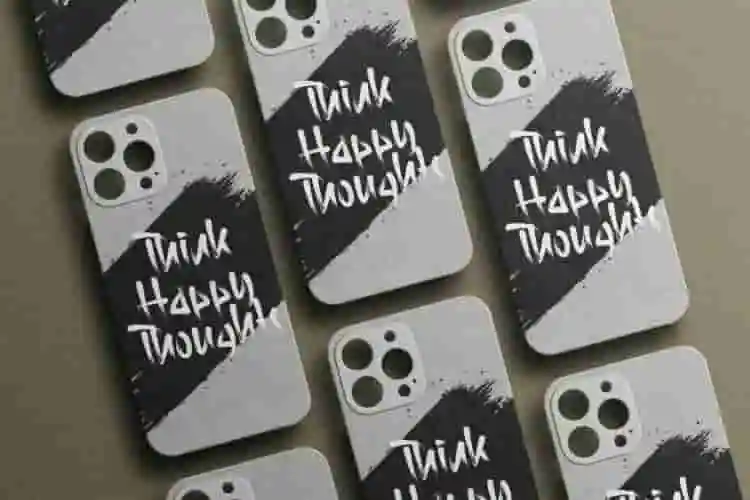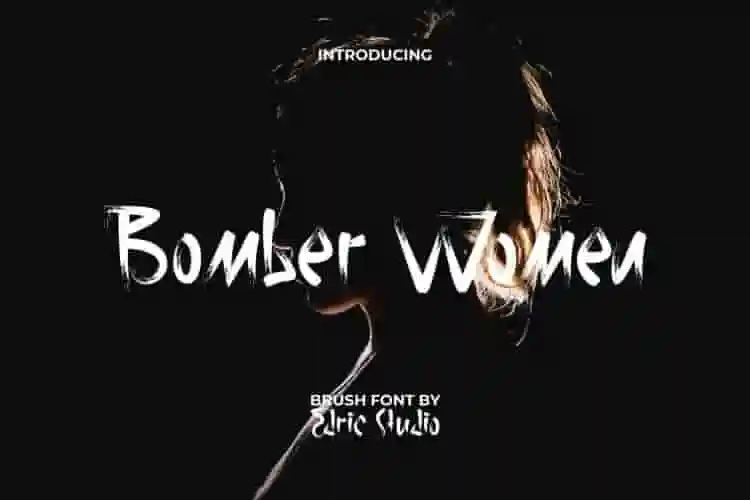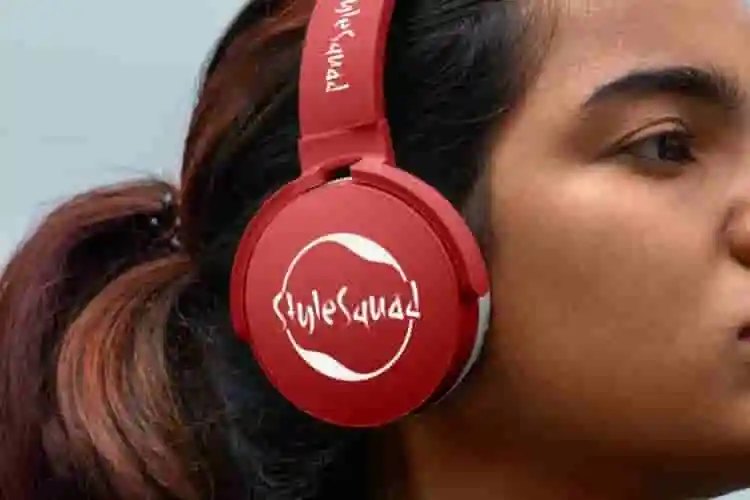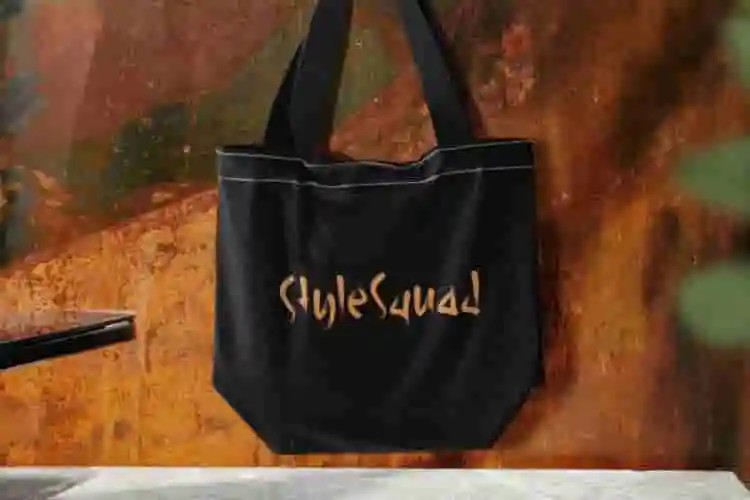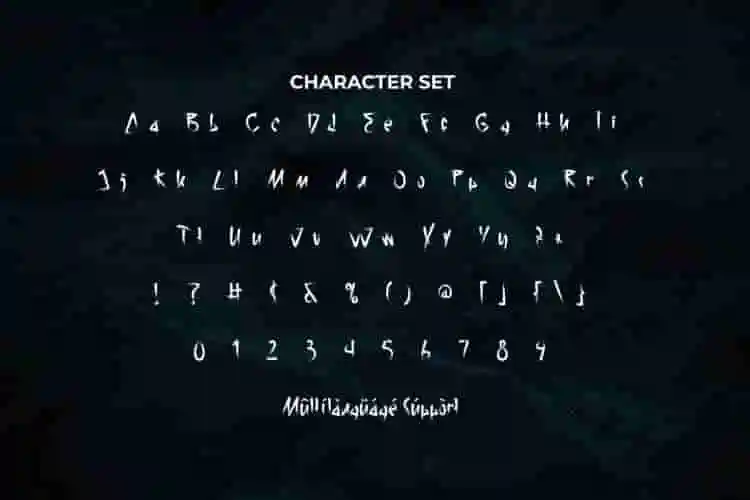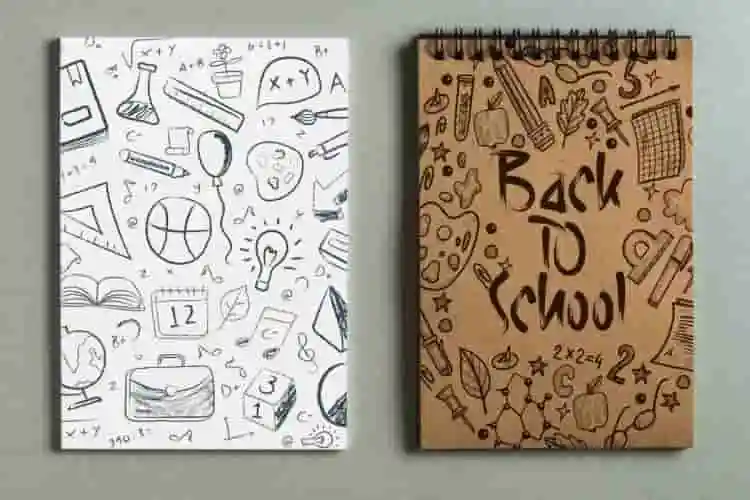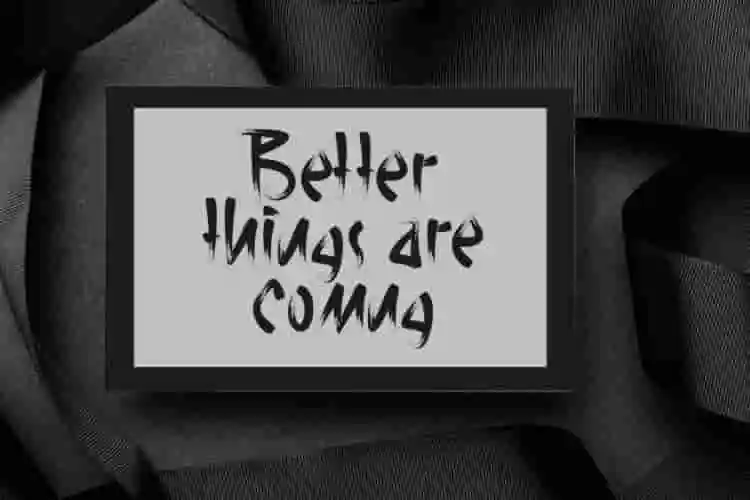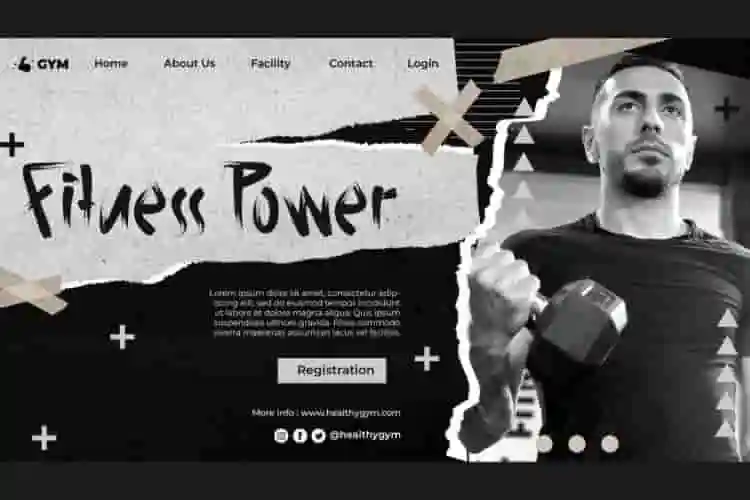
Bomber Women Brush Font
Bomber Women Font is a scary horror textured brush font. The font originally created by EdricStudio. The font theme is “Horror and Mysterious”, so brush selection in this spooky font is to show the dark side of scary for anyone who needs a gruesome look so it’s suitable for any industry, including: author, accessories, barbershop, clothing brand, coffee palace, fitness products, game, handicrafts, movie, music, photography, printing, publishing, sport, and many more.
Bomber Women Font comes with full set of Uppercase and Lowercase Basic Characters, Number, a large range of Punctuation and Symbol. It has a stunning characters set, perfectly managed with well spaced and kerning. Bomber Women Font will be able to complement for any project (with extended license) including: brand logo, brochure, business card, header, label, paper bag, poster, product packaging, screen print, stationery, sticker, website, etc.
Bomber Women is a fearless brush font designed to make noise. Whether you’re creating graphics for streetwear, protest posters, empowered branding, or social media campaigns, Bomber Women delivers strength, confidence, and unapologetic style.
Meet Bomber Women, a bold and unapologetic brush font made for those who design without fear. With rough textures, dynamic strokes, and street-style energy, this font is all about attitude, movement, and confidence.
• Expressive Brush Strokes
• High-Impact All Caps